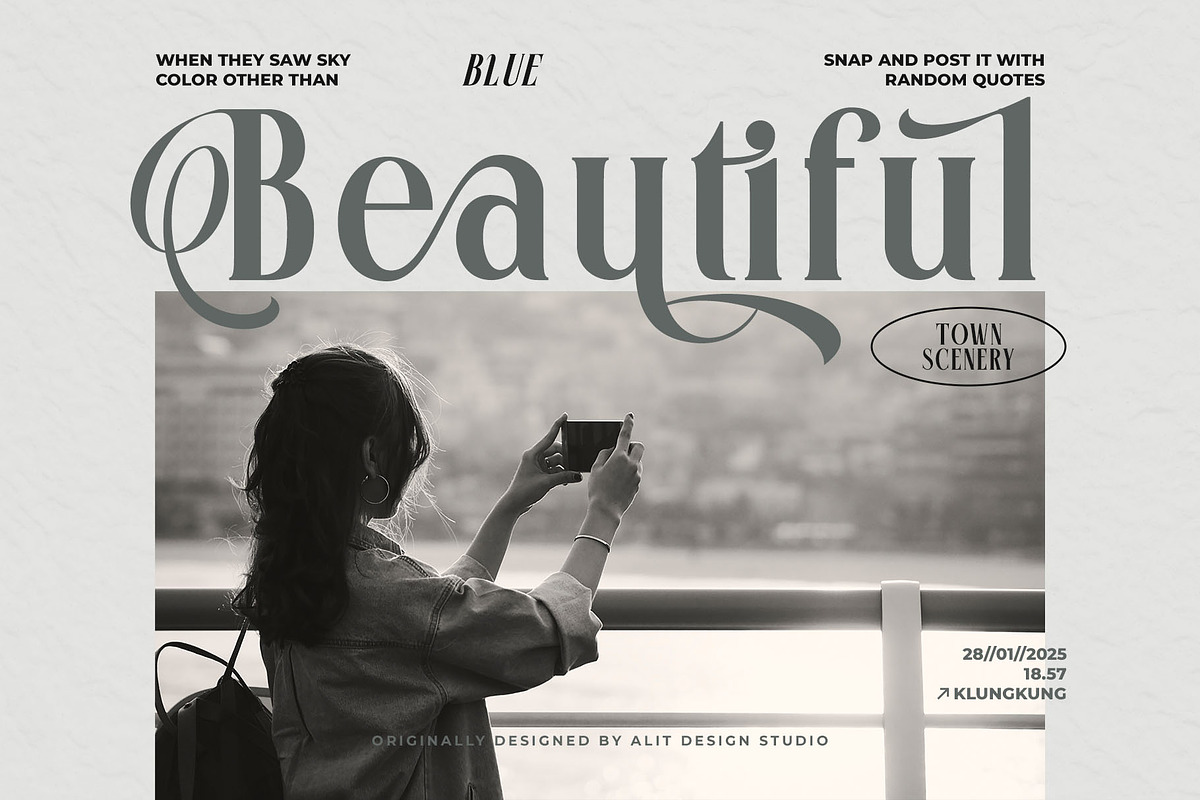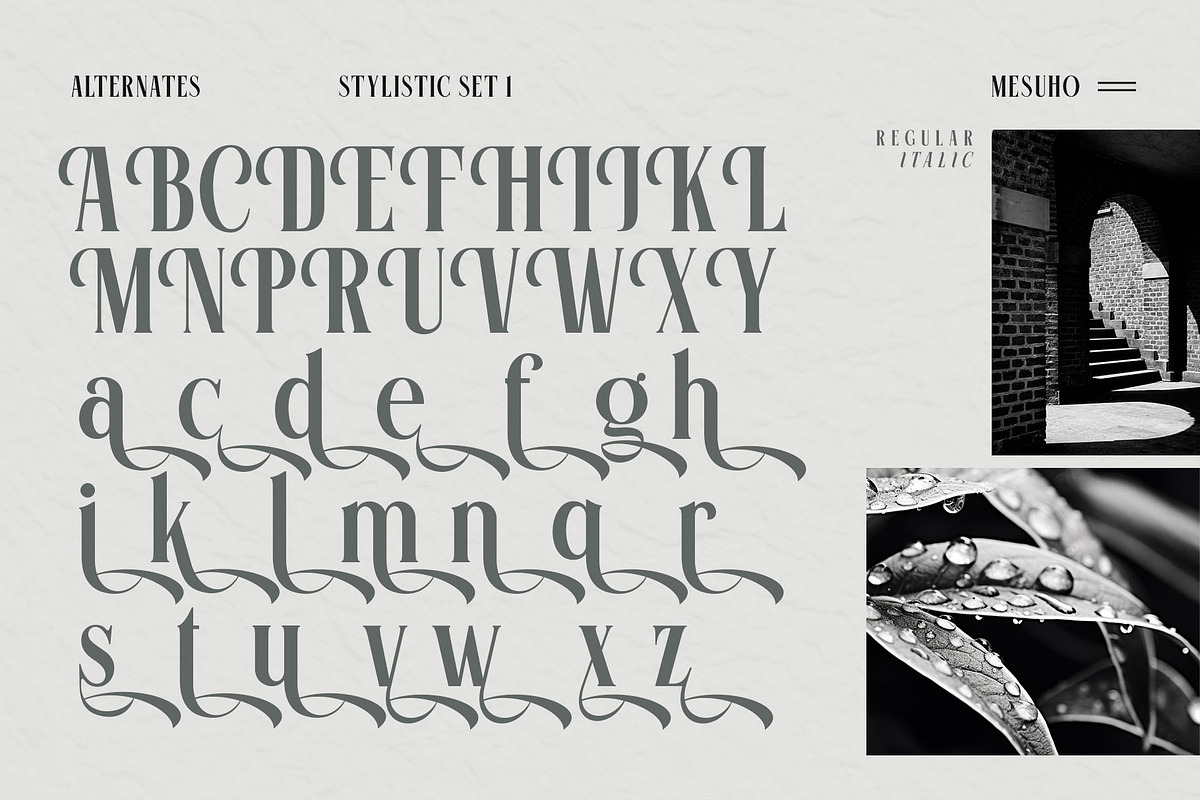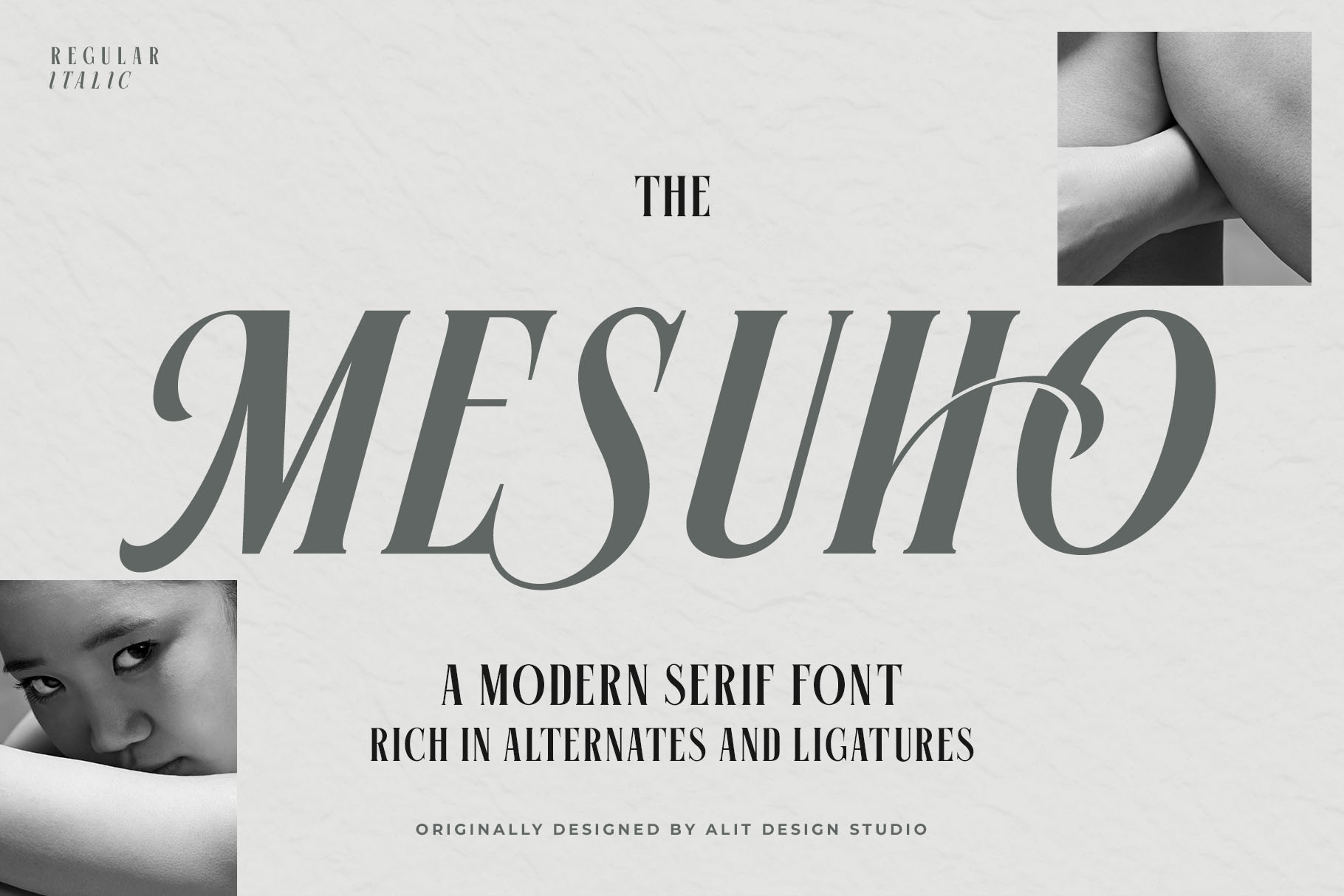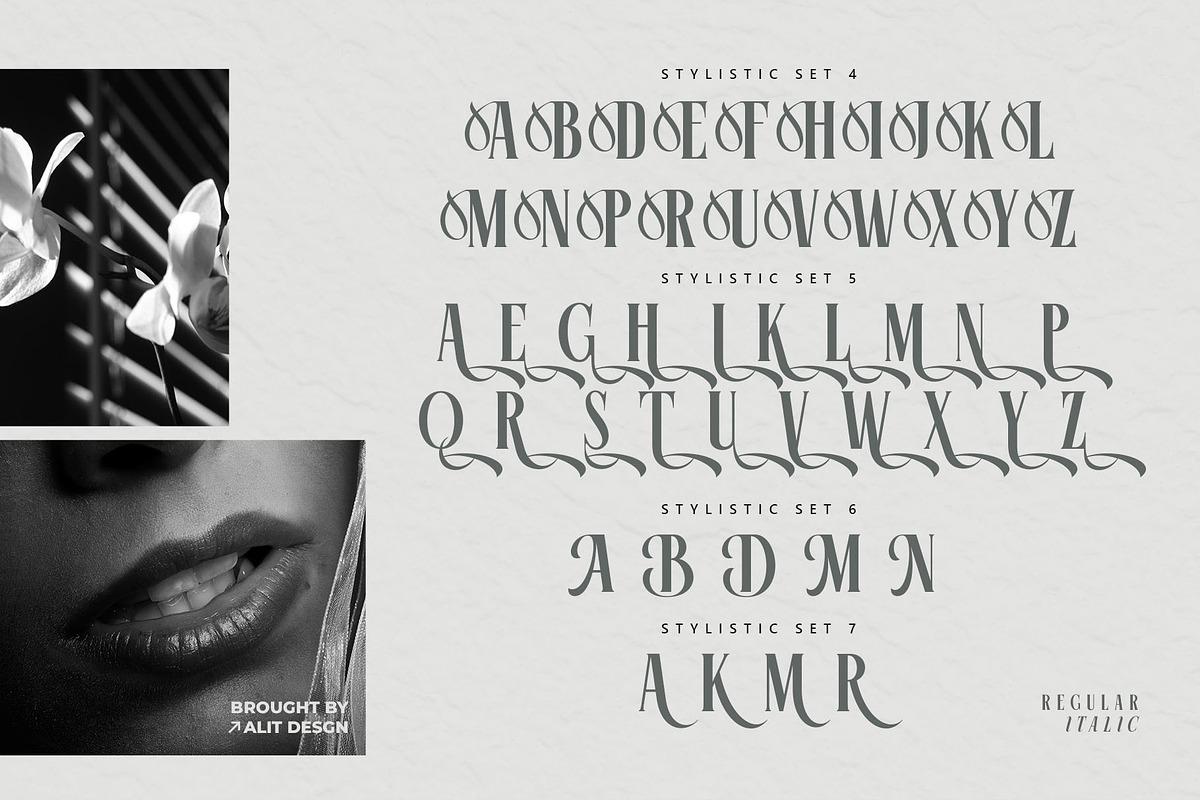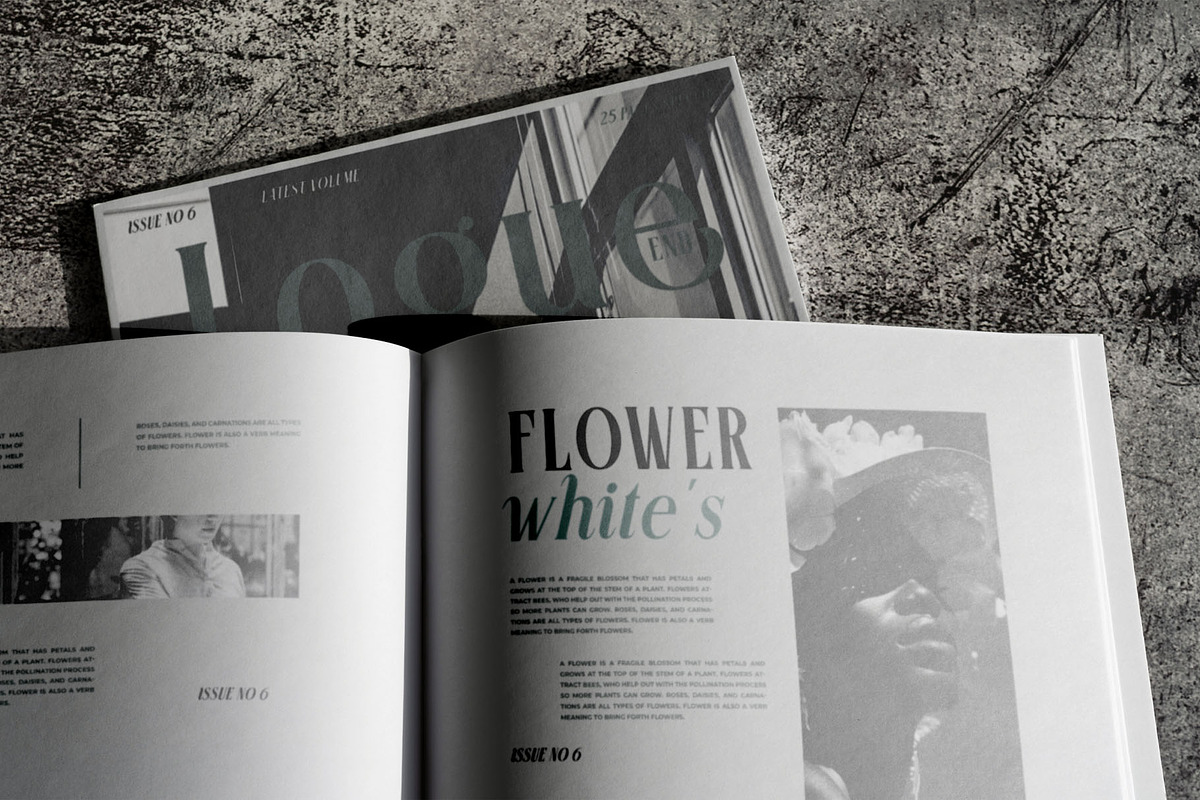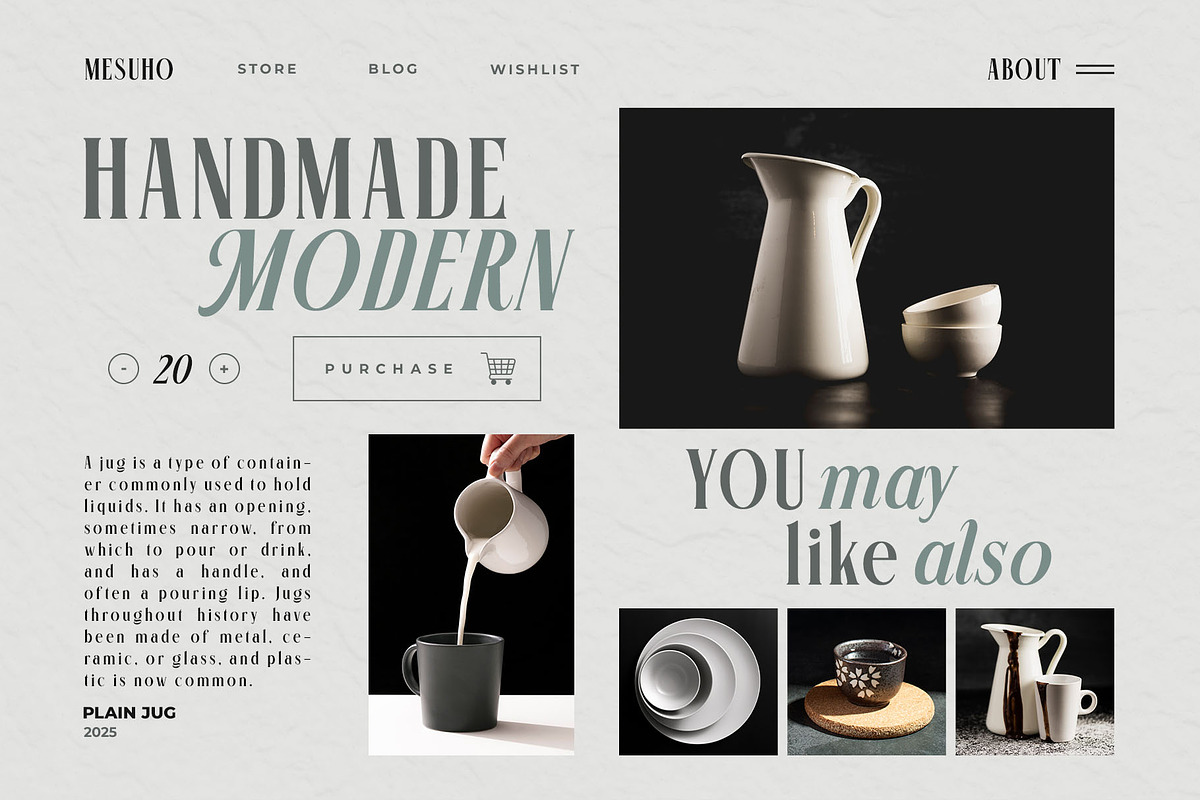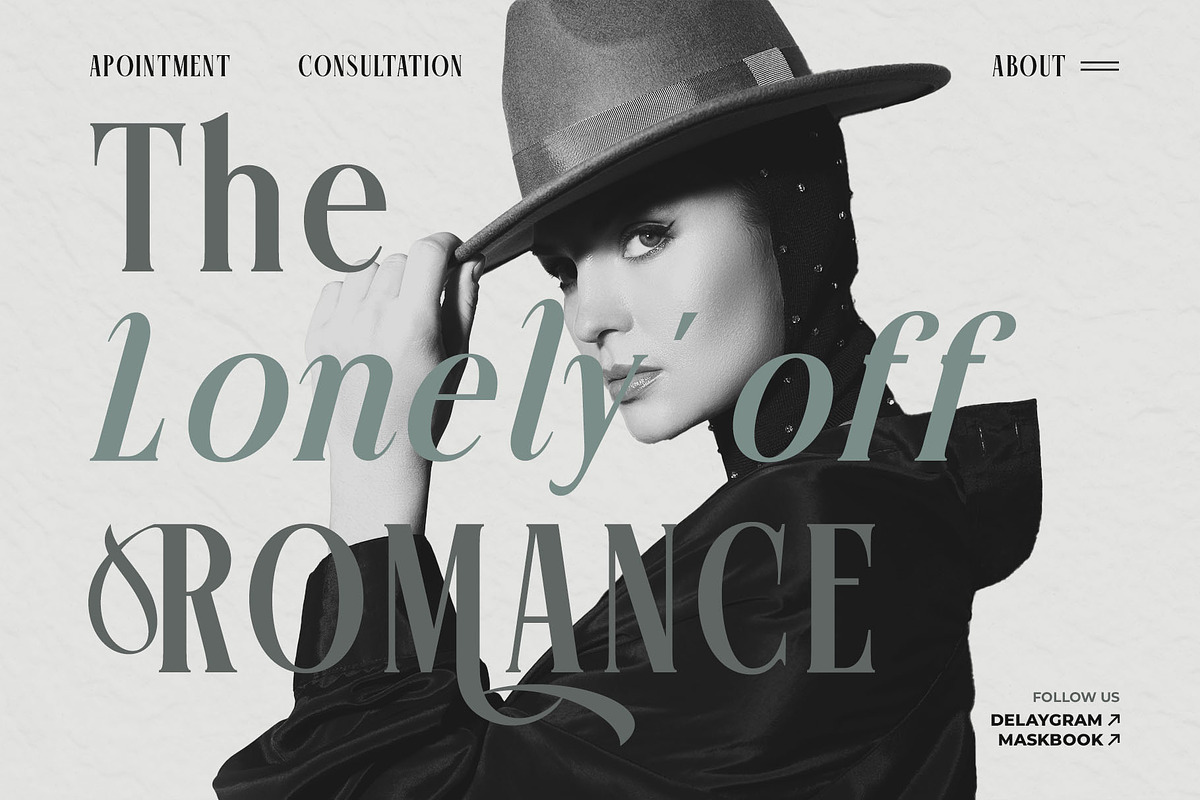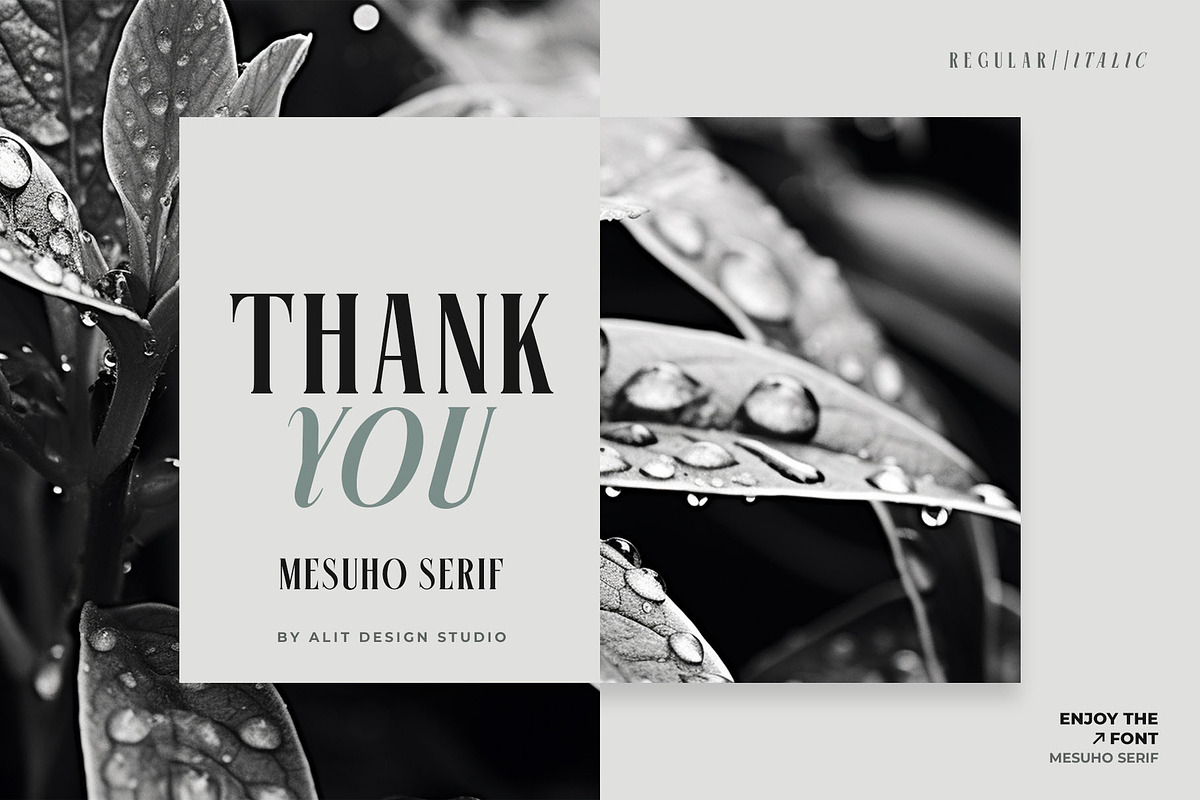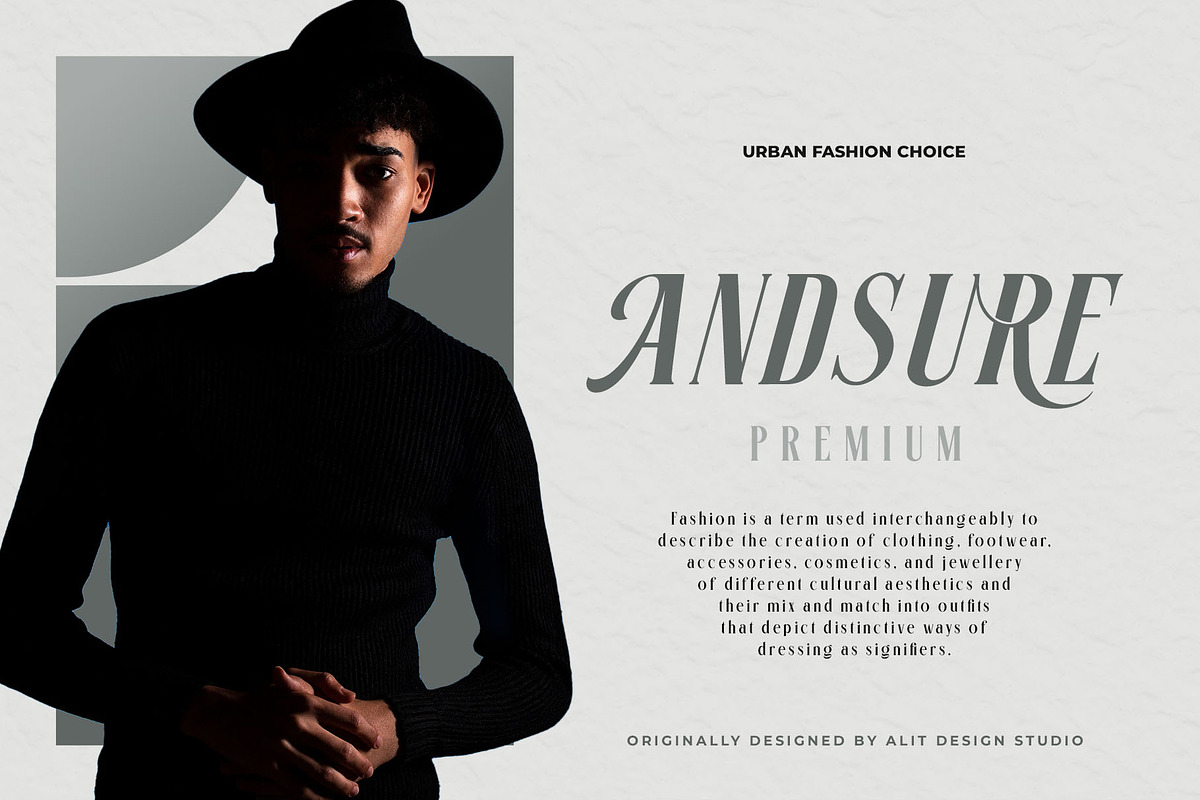
Mesuho Font
Mesuho is a sophisticated and elegant serif typeface that effortlessly blends modernity with a touch of vintage charm. Designed for both readability and aesthetic appeal, Mesuho is perfect for projects that demand a sense of refinement and artistry.
- Serif Elegance: Beautifully crafted serifs that add sophistication to your designs.
- Stylistic Sets: Mesuho includes multiple stylistic alternatives, offering flexibility to create unique lettering and typographic compositions.
- Versatile Weight: Regular and Italic versions are available, perfect for everything from bold headlines to refined body text.
- Capital and Lowercase Excellence: The uppercase letters stand out with their striking presence, while the lowercase provides a soft, timeless flow.
- Perfect for Branding: Mesuho is ideal for luxury branding, editorial design, invitations, and elegant advertising campaigns.
Best Suited For:
- Fashion and Editorial Design: Capture a chic and luxurious feel for magazines, portfolios, or personal blogs.
- Logo Creation: Perfect for creating elegant, high-end brand logos.
- Wedding Invitations: Add a touch of timeless beauty to invitations and stationery.
- Social Media Content: Perfect for stylish and sophisticated social media graphics.
Font Styles:
- Italic
- Multiple Stylistic Sets (4, 5, 6, 7)
Elevate your designs with the striking and versatile Mesuho typeface—a font that brings artistry and luxury to every letterform.